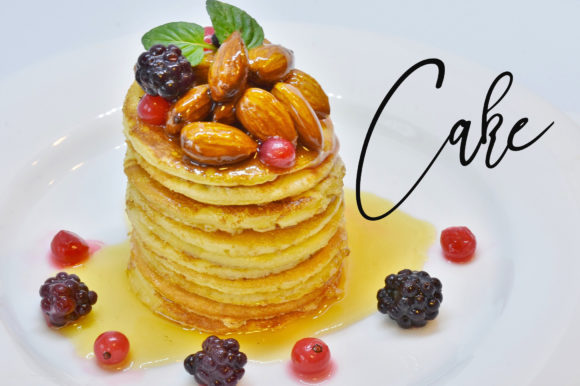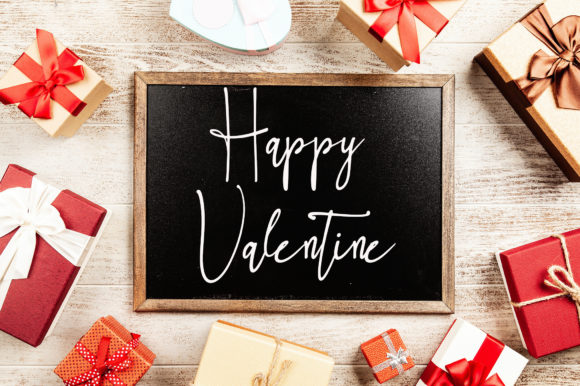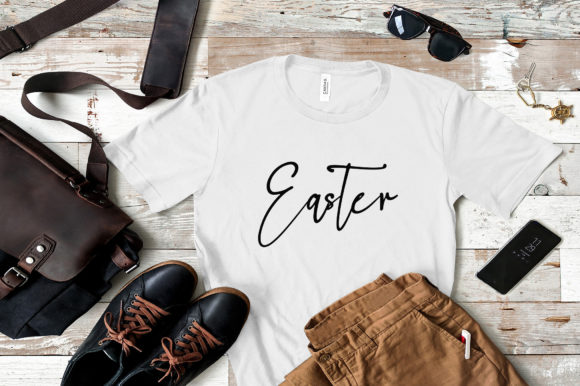
Introduction to Butter Milk Font
Butter Milk is a fine, smart script font that emanates sophistication and elegance.
Fall in love with its incredibly versatile style and use it to create spectacular designs .
Key Features of Butter Milk Font
Why Choose Butter Milk Font?
Butter Milk Font offers exceptional quality and versatility, making it a valuable addition to your design toolkit. Whether you’re creating for personal projects or commercial use, Butter Milk Font delivers professional results.